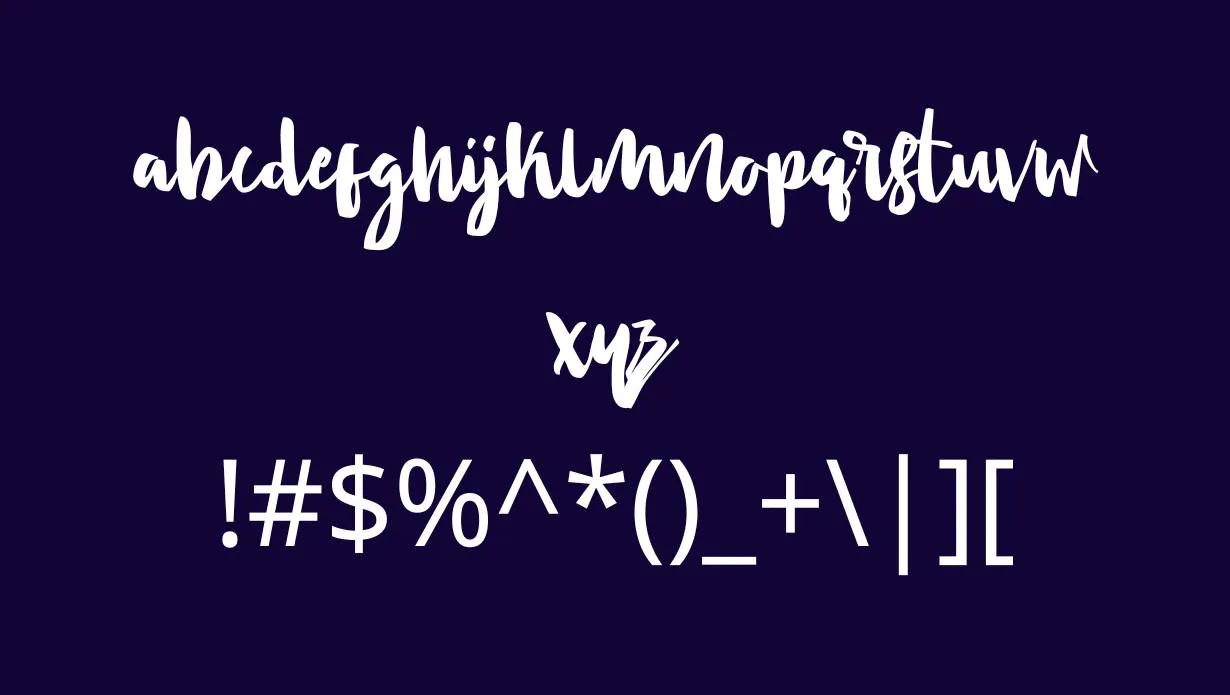
Lovetime Script Font is a handwritten script typeface that captures the natural flow of handwriting.
It’s often used in personal blogs, product packaging, and branding materials, creating an informal and approachable atmosphere in design. If you desire to make your design project more captivating, I recommend pairing this font with a unique typeface such as the Lucida Calligraphy Font.
| Name | Lovetime Script Font |
| Designer | Olexstudio |